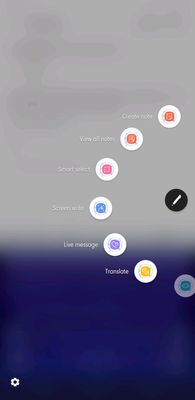
Free Monotype Font in Galaxy app store
Harmonia Sans Condensed Latin Flipfont is available free in the Galaxy app store if anyone is interested. Other fonts available on sale until end of August.
It's a very nice, clean and crisp font. 😁aef81841-3db1-470f-9c1c-c5e431c9199f.jpg
Been using it for some time now. I really enjoy it. I can hardly remember how it used to look before except from the capitalized headers lol